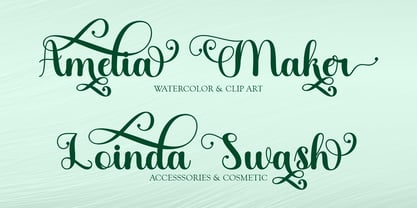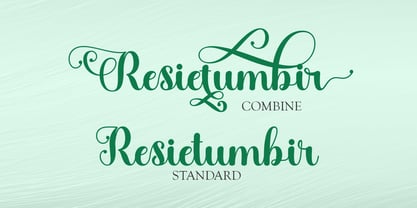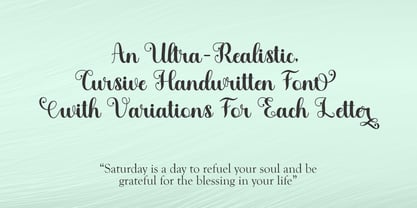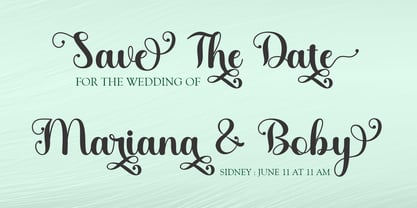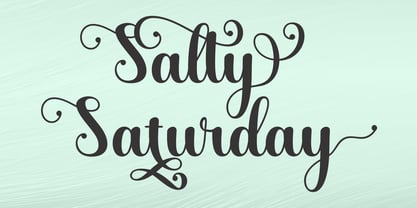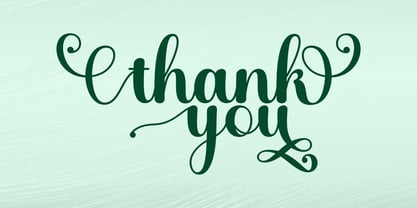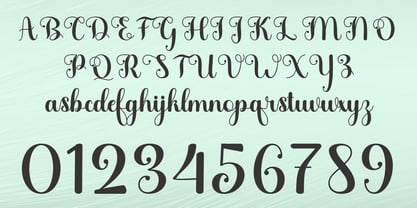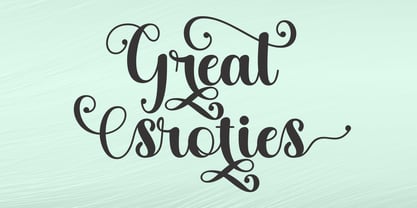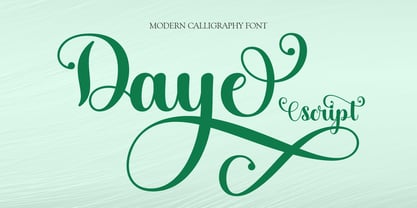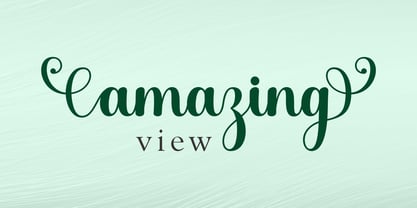
Daye Script
La famille de polices Daye Script a été conçue par Yusliana M Isa et publiée par Gian Studio. Daye Script contient 1 styles.
Daye Script is a modern calligraphy design volume. This font is casual and graceful. Ideal for wedding invitations, signage, headlines, logos, packaging, product branding, etc.
Daye Script alternate characters. including OpenType Stylistic alternates, ligatures and international language support.